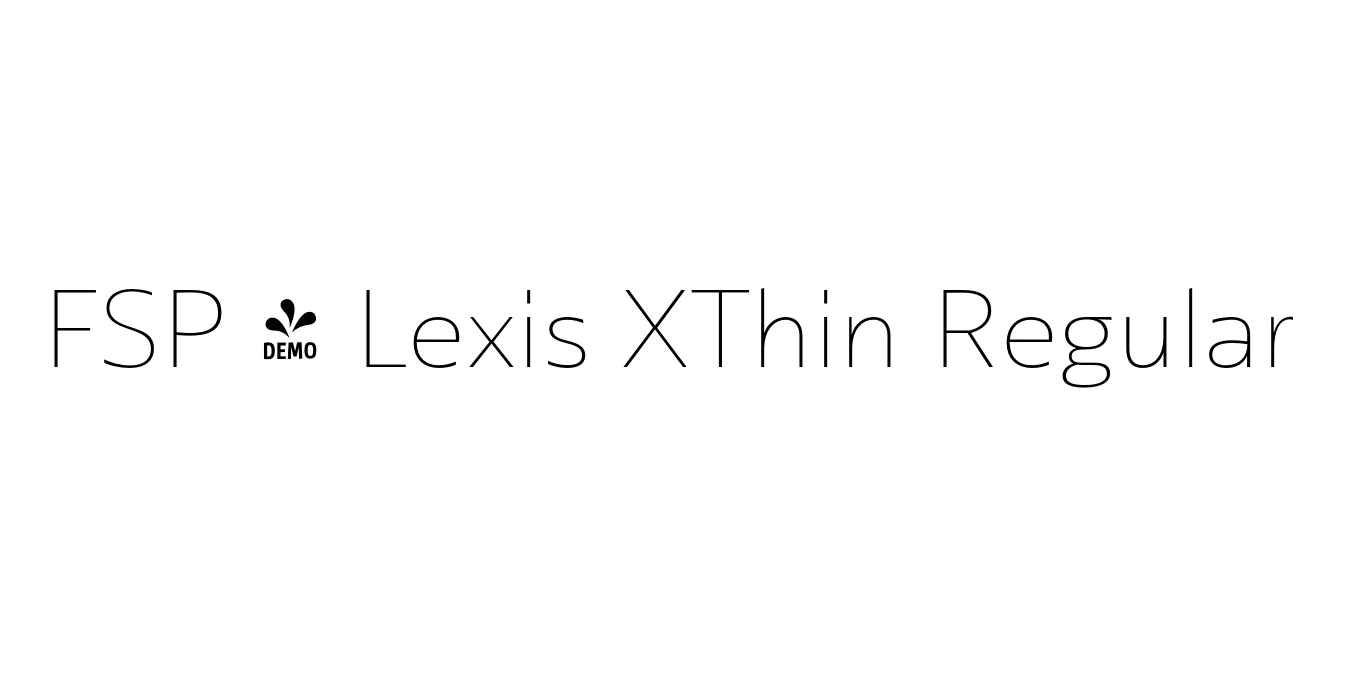
FSP - Lexis XThin Regular
Designed by Svetoslav Simov
Lexis XThin Regular is a masterfully crafted sans-serif typeface that exemplifies the intersection of geometric structure and humanist elegance. Developed by Svetoslav Simov and released through Fontfabric, this specific weight offers an exceptionally delicate stroke width, making it a premier choice for designers seeking a refined, airy aesthetic. Its clean construction and wide apertures contribute to a high level of legibility, despite its slender profile, ensuring that it remains functional across various display resolutions.
As part of the broader Lexis family, the XThin variant is particularly well-suited for high-end fashion, luxury branding, and sophisticated editorial layouts. The font provides a contemporary feel that balances technological precision with an approachable, organic touch. Whether used in large-scale headlines or minimalist logos, Lexis XThin Regular provides a distinct sense of modern professionalism and understated beauty in every character.
FSP - Lexis XThin Regular Best Uses
Excellent for high-fashion magazines and minimalist layout headlines where elegance is paramount.
Ideal for luxury labels and tech startup identities requiring a clean, sophisticated look.
Perfect for hero text and elegant navigation elements on modern, high-contrast websites.